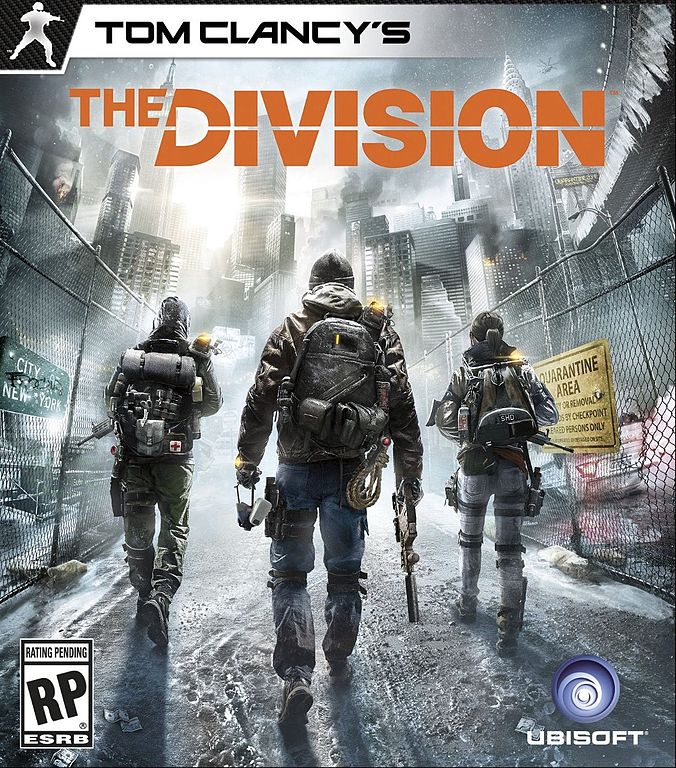
Tom Clancy's The Division Font
Fonts in UseTom Clancy’s The Division is a third-person shooter video game developed by Ubisoft Massive and released for PlayStation 4, Xbox One, and Microsoft Windows. The game is set in a post-apocalyptic version of New York City where players take on the role of agents of the Strategic Homeland Division (SHD) tasked with restoring order and investigating the cause of a deadly virus outbreak.
The game logo utilizes two distinct fonts: Ghost Clan Regular for the "TOM CLANCY'S" portion and Helvetica Black for "THE DIVISION." The official website's font, used for both the title and body text, is the square sans-serif "Borda" designed by Jonathan Hill.